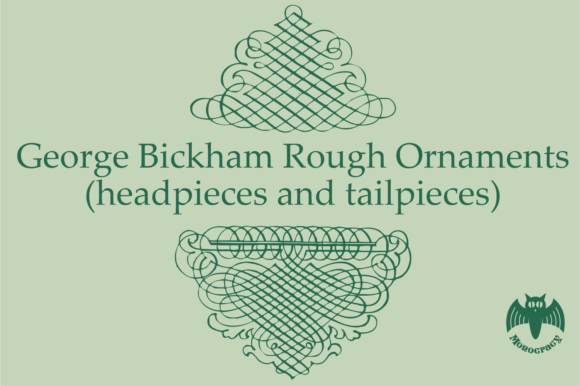
Unveil the George Bickham Rough Ornaments font, a remarkable dingbats font family that will captivate your designs with its intricate beauty. Experience the fusion of creativity and functionality as this font family elevates your business cards, logos, flyers, and social media graphics to new heights.
The George Bickham Rough Ornaments font family features an array of meticulously crafted symbols, ornaments, and flourishes that add a touch of elegance and sophistication to your designs. Whether you're creating a vintage-inspired wedding invitation, a whimsical greeting card, or a dynamic marketing campaign, this font family provides endless possibilities for creative expression.
Step into a world of limitless design opportunities with the George Bickham Rough Ornaments font. Its versatility shines through in its ability to blend seamlessly with other fonts, allowing you to create harmonious and visually striking compositions. Unleash your imagination and explore the boundless possibilities of this remarkable font family.
Discover the allure of the George Bickham Rough Ornaments font and witness how its intricate details and delicate style transform your designs into works of art. Say goodbye to ordinary and embrace the extraordinary as you immerse yourself in the world of this captivating dingbats font family.